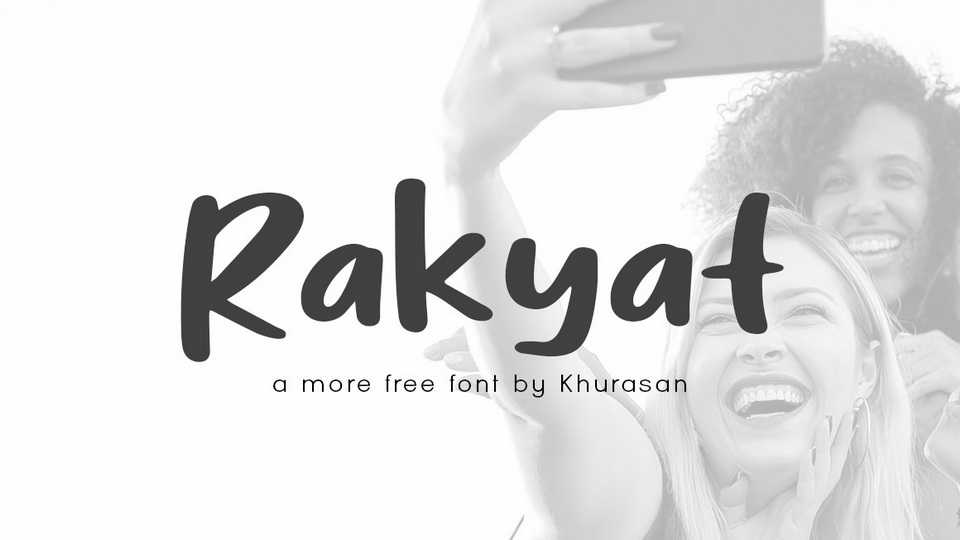
Download Rakyat font, a simple and natural hand lettered marker typeface. Rakyat is perfect for posters, logos, magazines, book covers, banners, and many more.